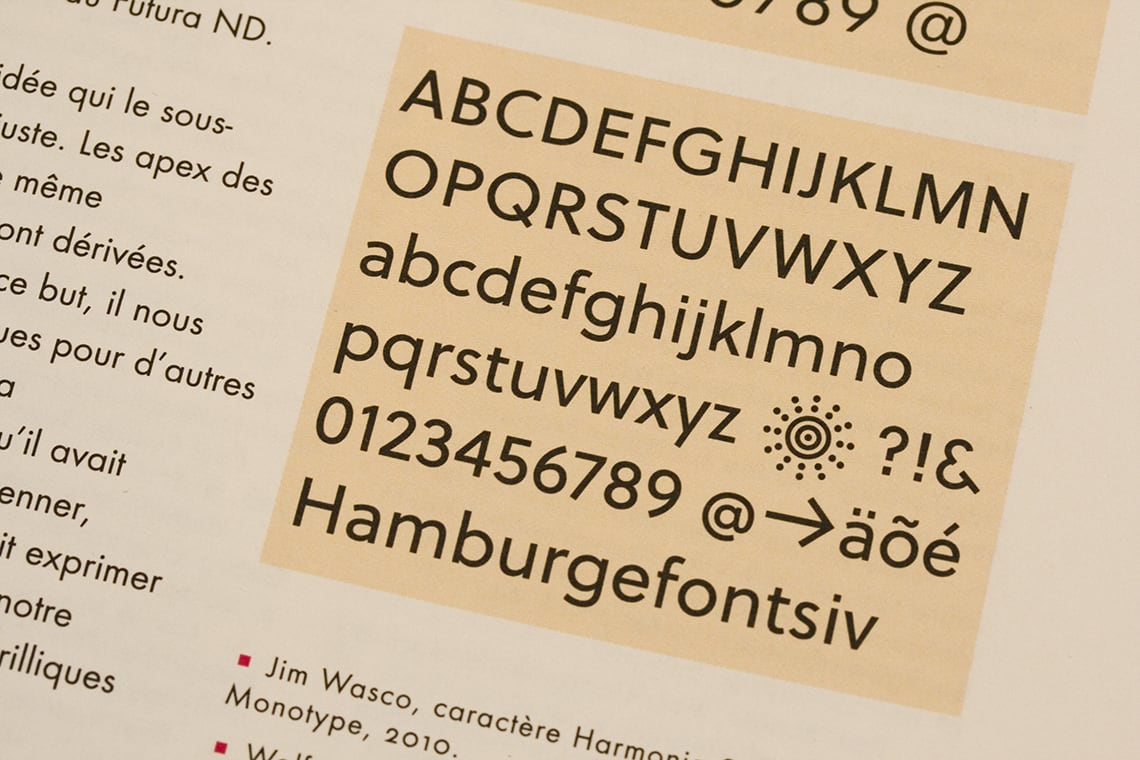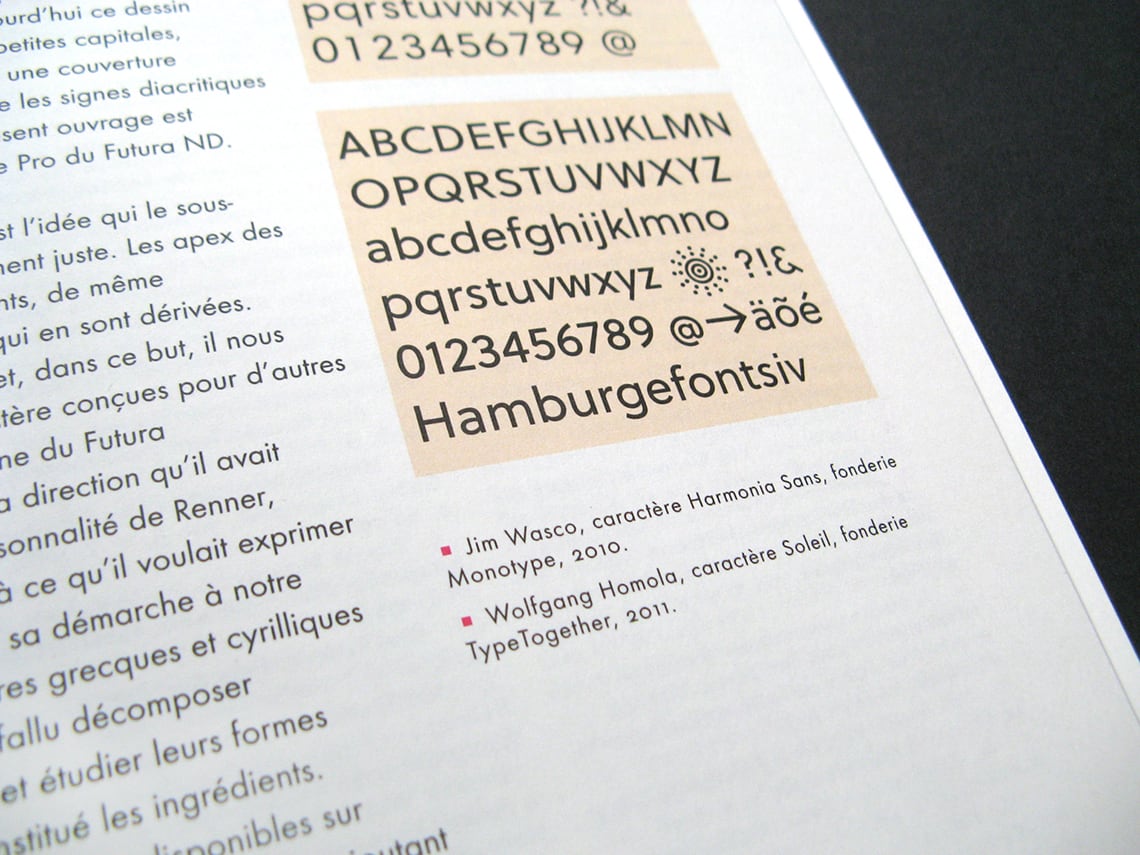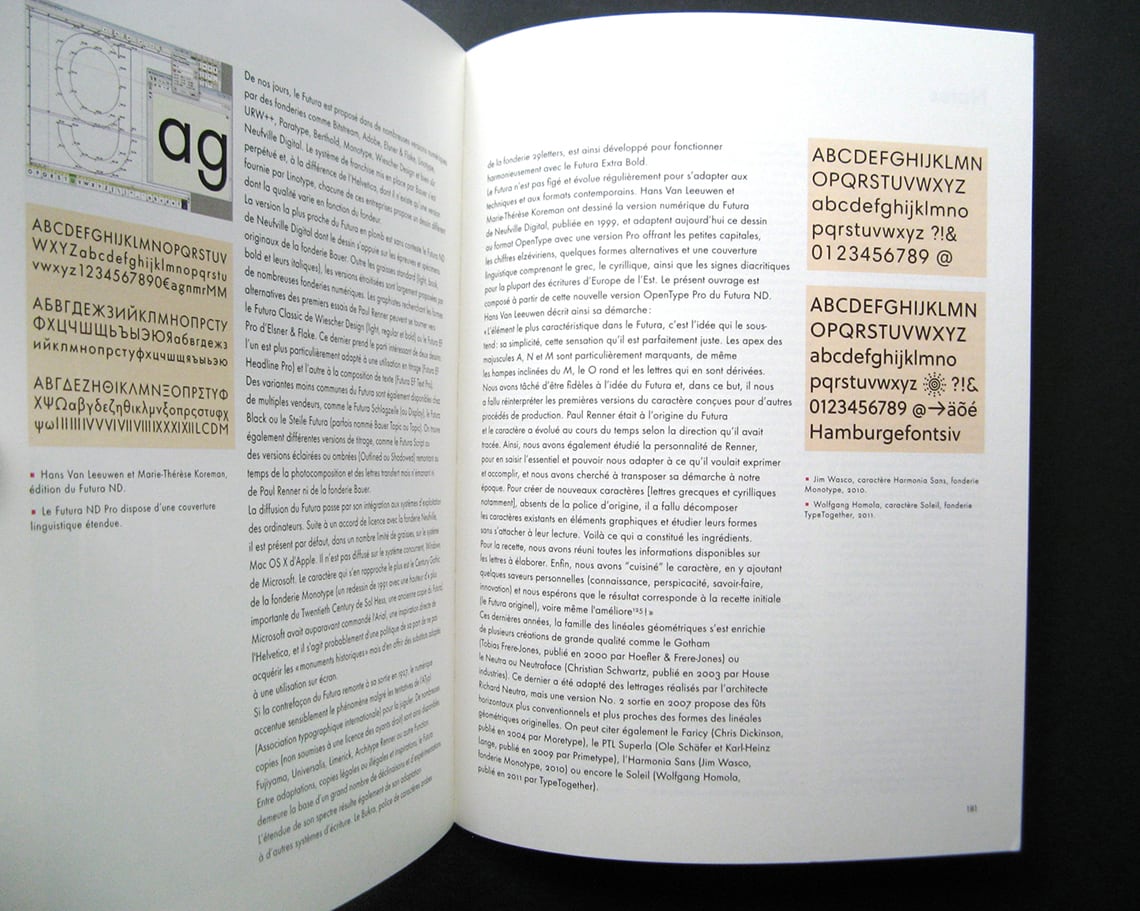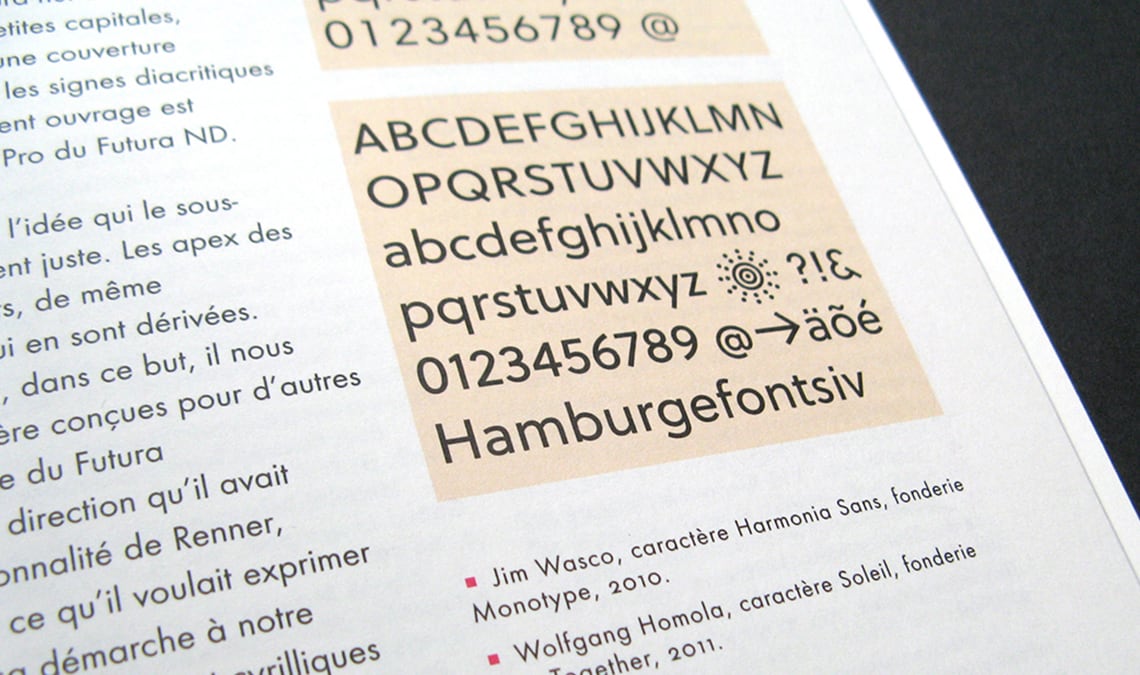
Futura. Une gloire typographique
Soleil appears in the book Futura. Une gloire typographique.
Soleil, by Wolfgang Homola, is being featured as contemporary interpretation of Futura in the book Futura. Une gloire typographique, by Alexandre Dumas de Rauly, Michel Wlassikoff, published by Norma éditions, 2011.